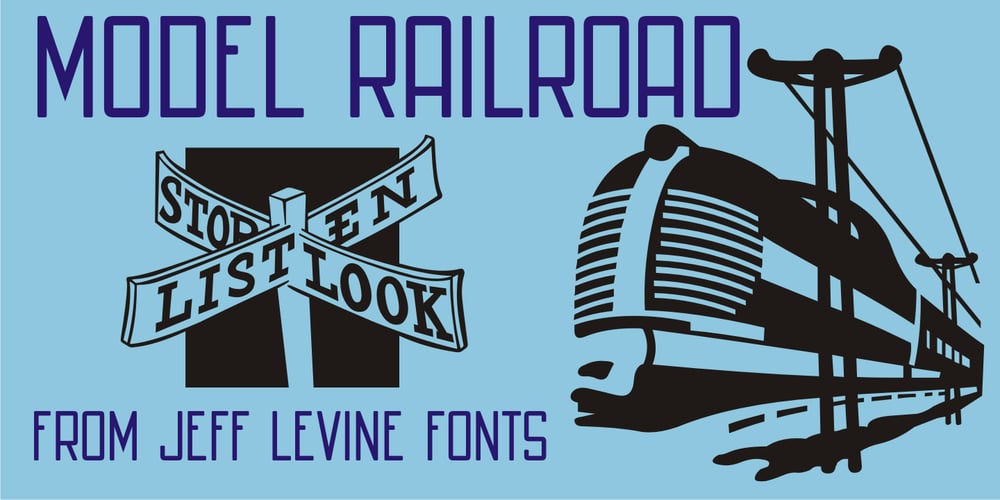
Model Railroad JNL Font Family was designed by Jeff Levine and published by Jeff Levine. Model Railroad JNL contains 1 styles and family package options. The block style lettering with rounded corners found on a package for model railroad kit parts was the inspiration for Model Railroad JNL.